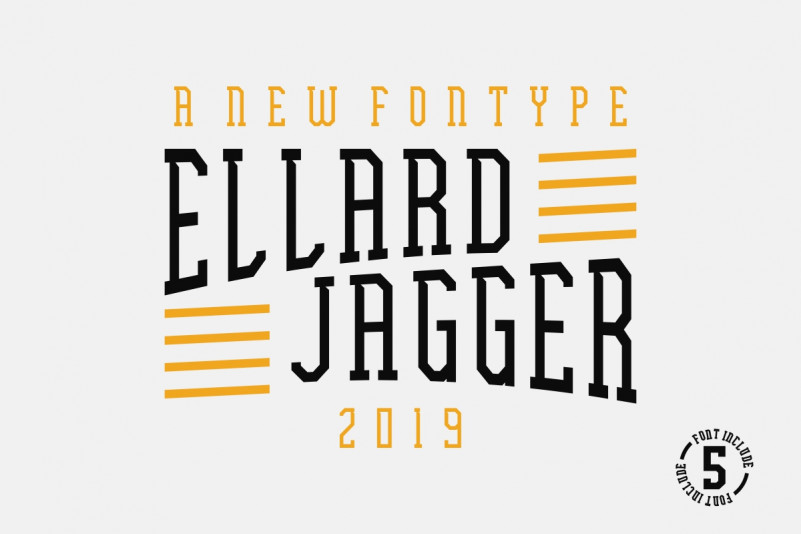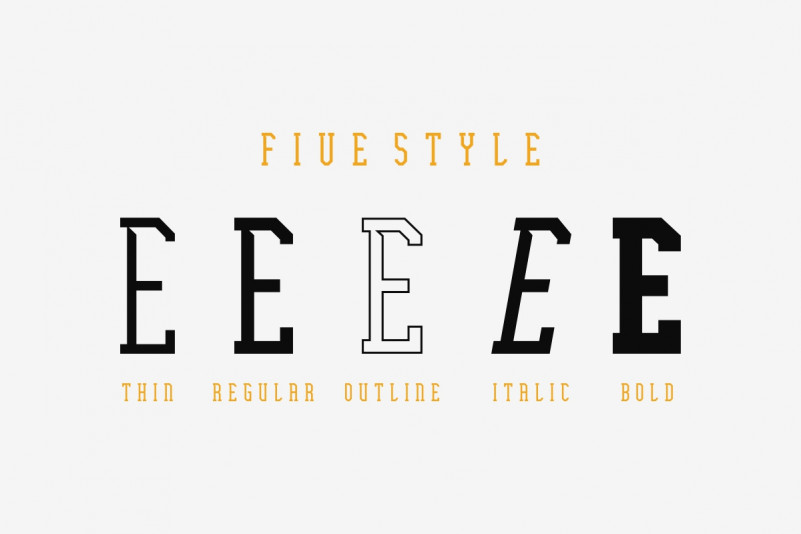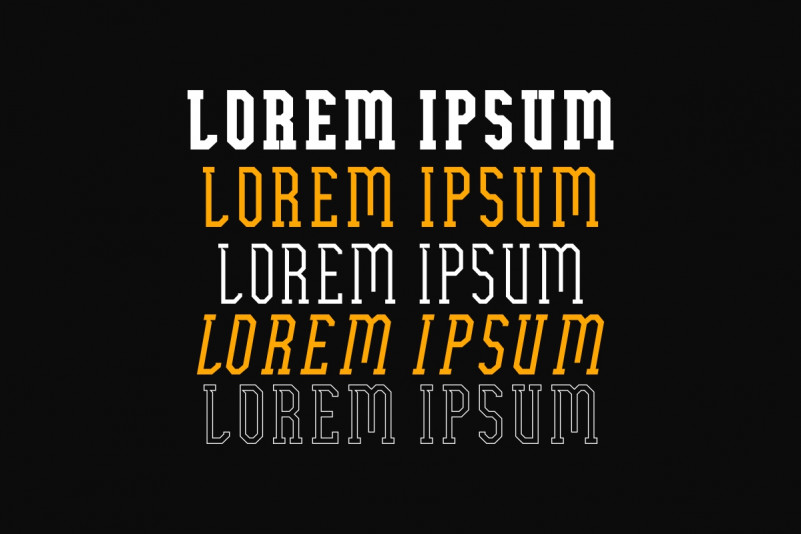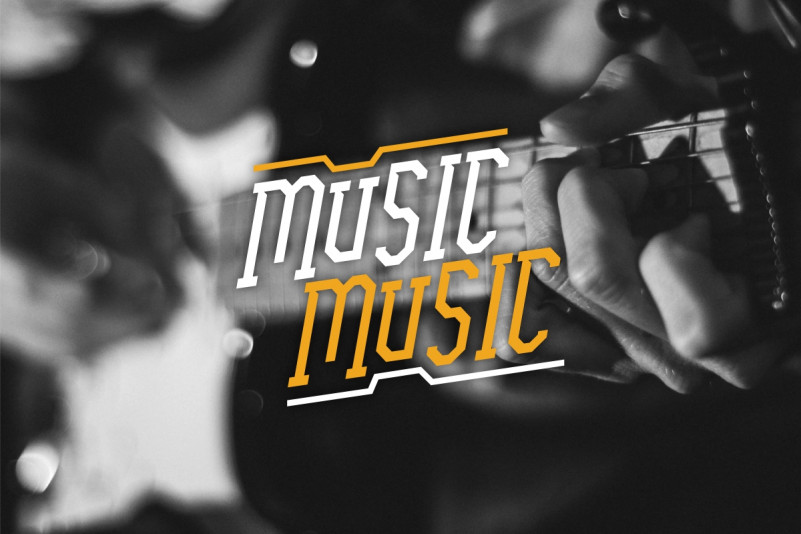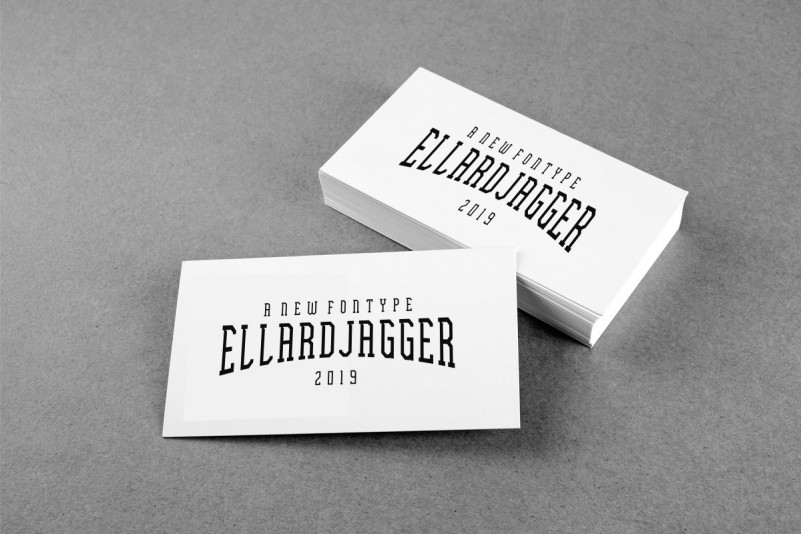
Ellard Jagger Display Font
Ellard Jagger Display Font is a sans display font with 5 styles : Thin, regular, outline, italic, bold. Great for branding, logo, stationery, business card, signage, flyer, brochure etc. There are many industries that is suitable for this font : construction, real estate, services, law firm, cafe, etc
EllardJagger Retro Sans Serif With 5 Fonts